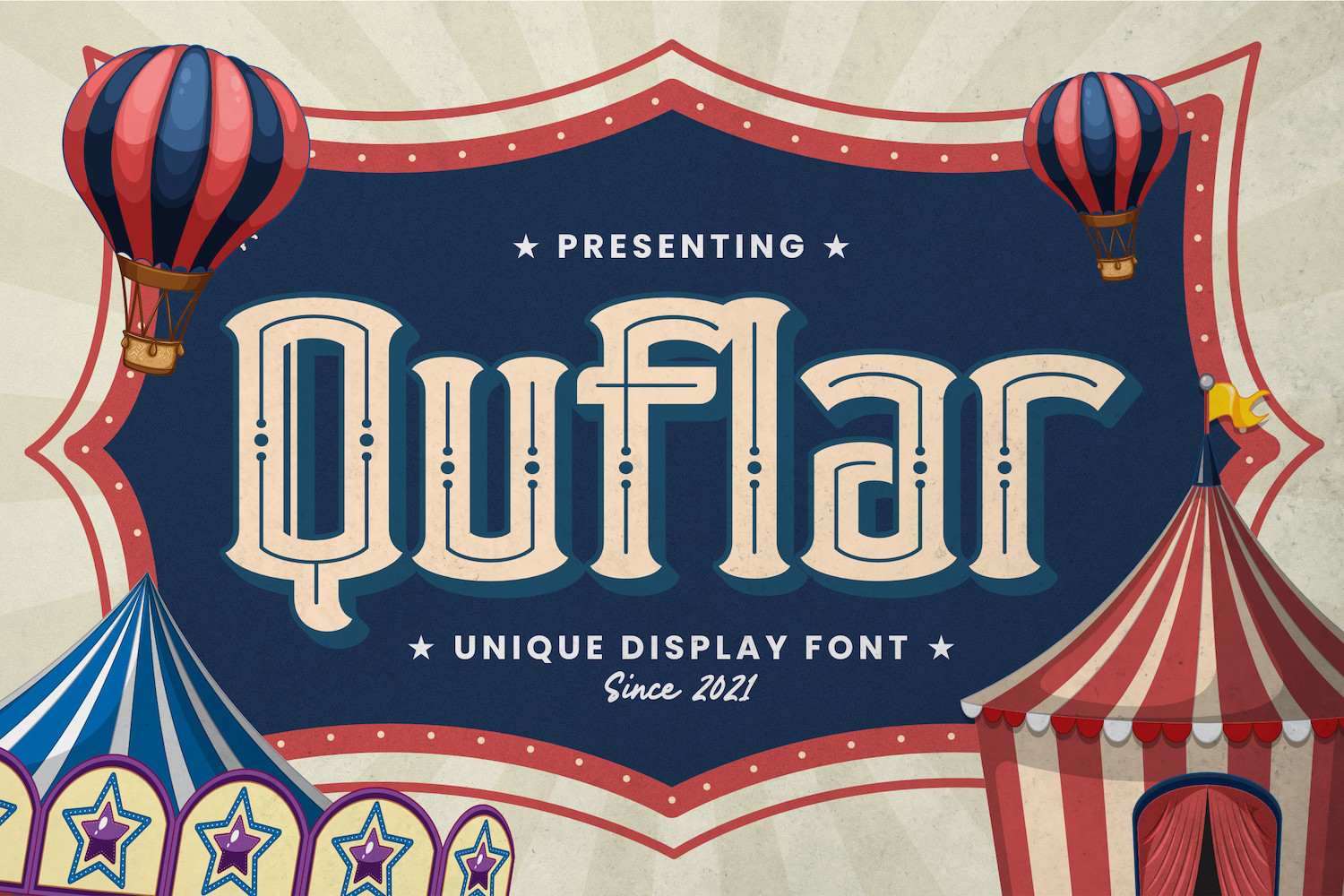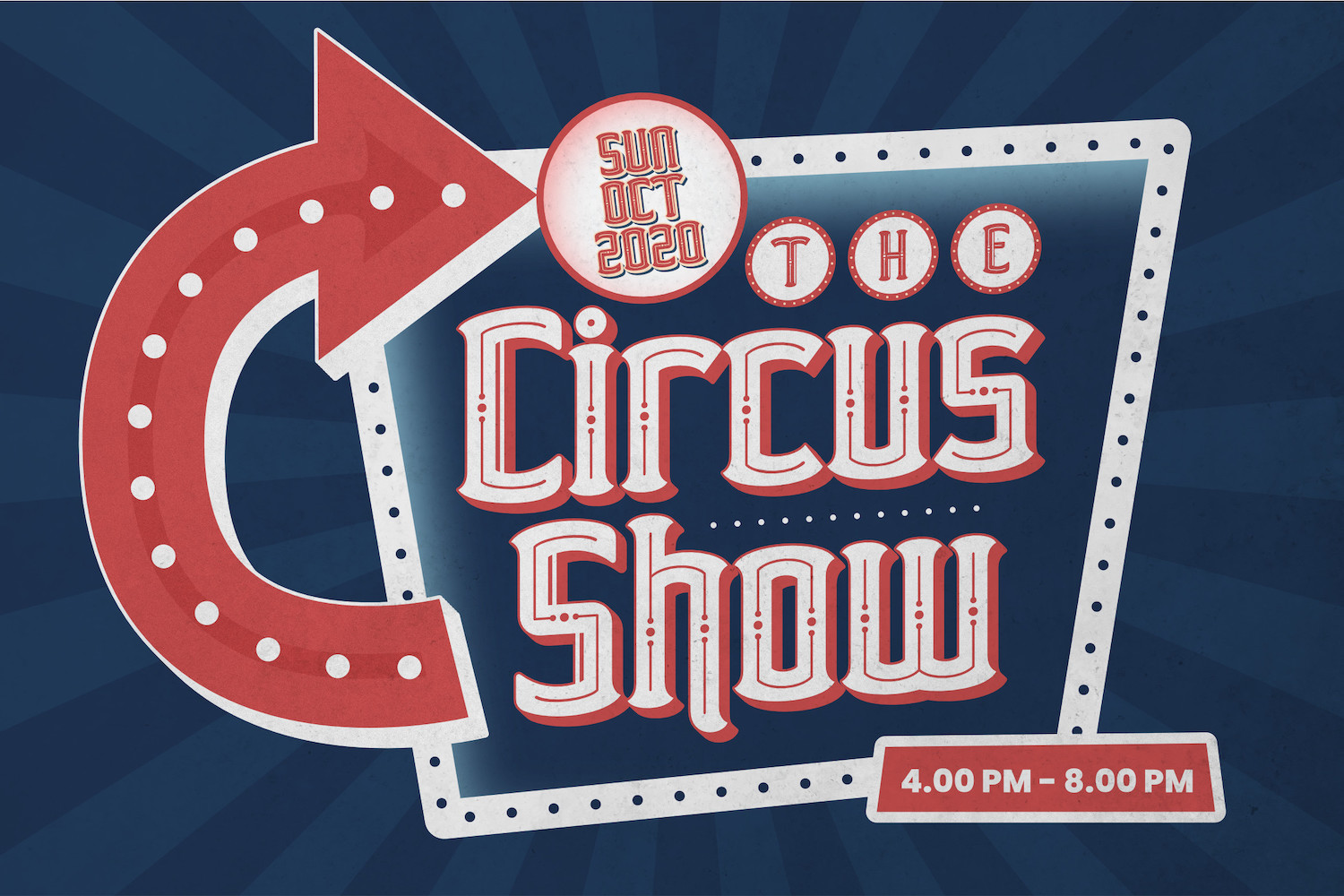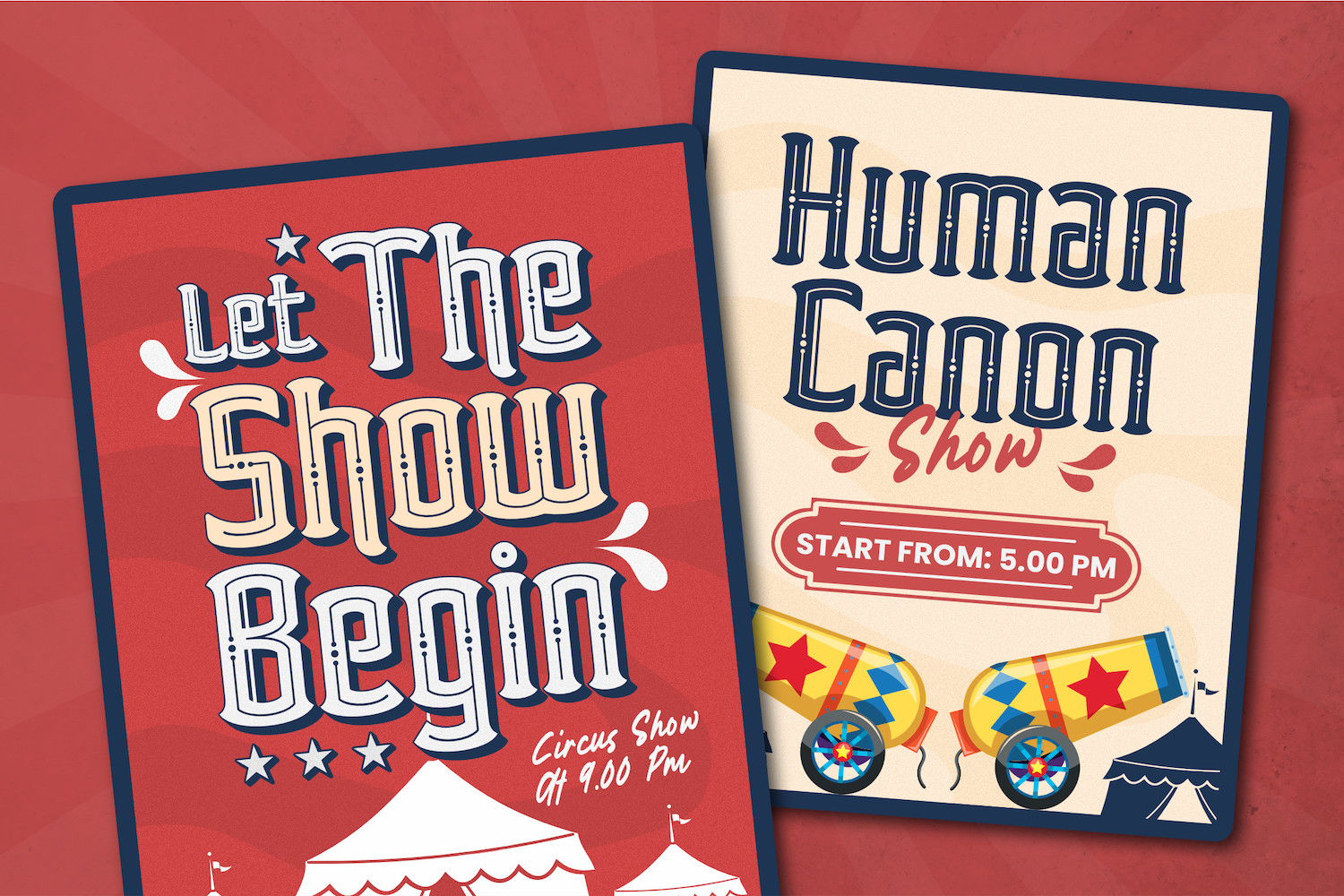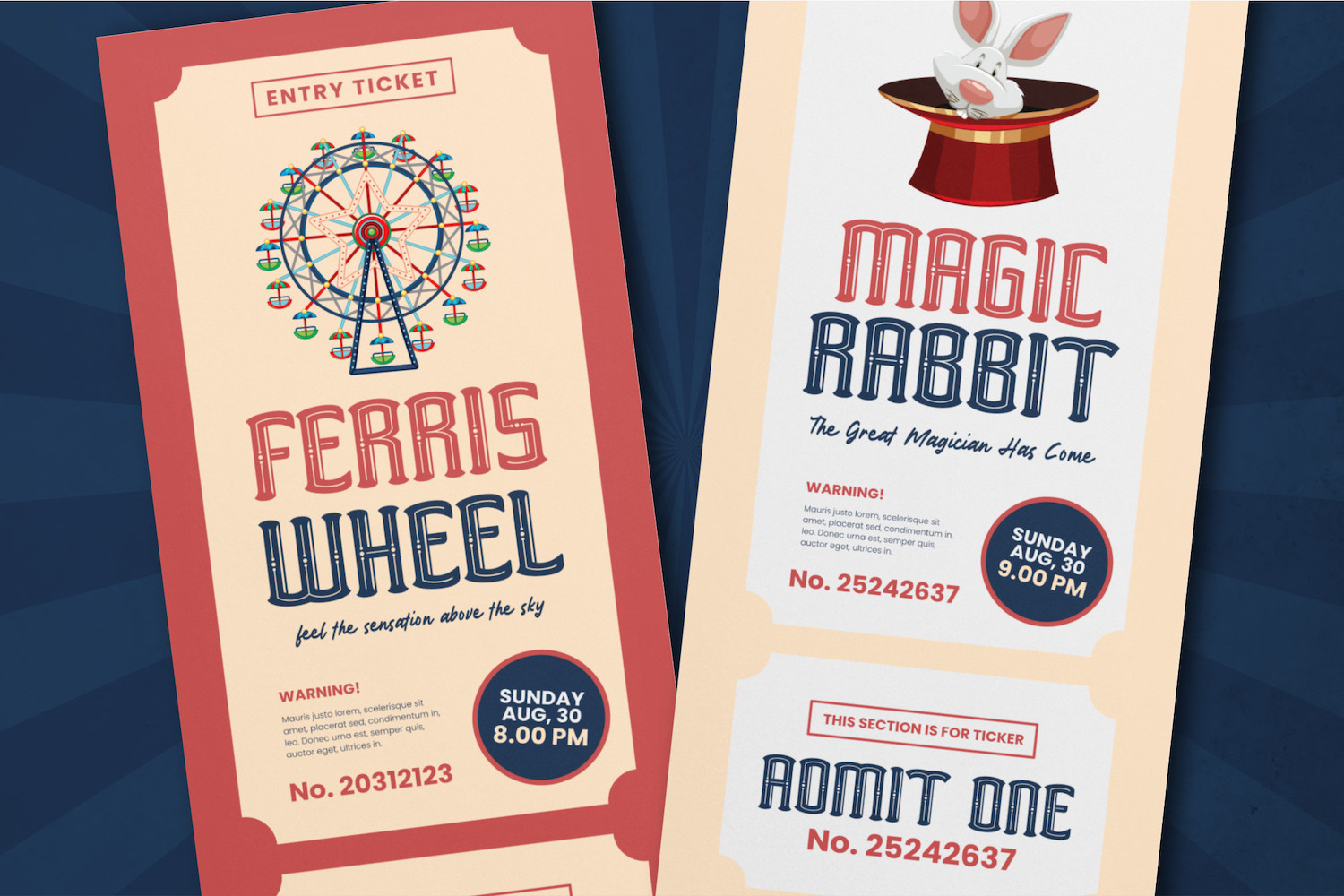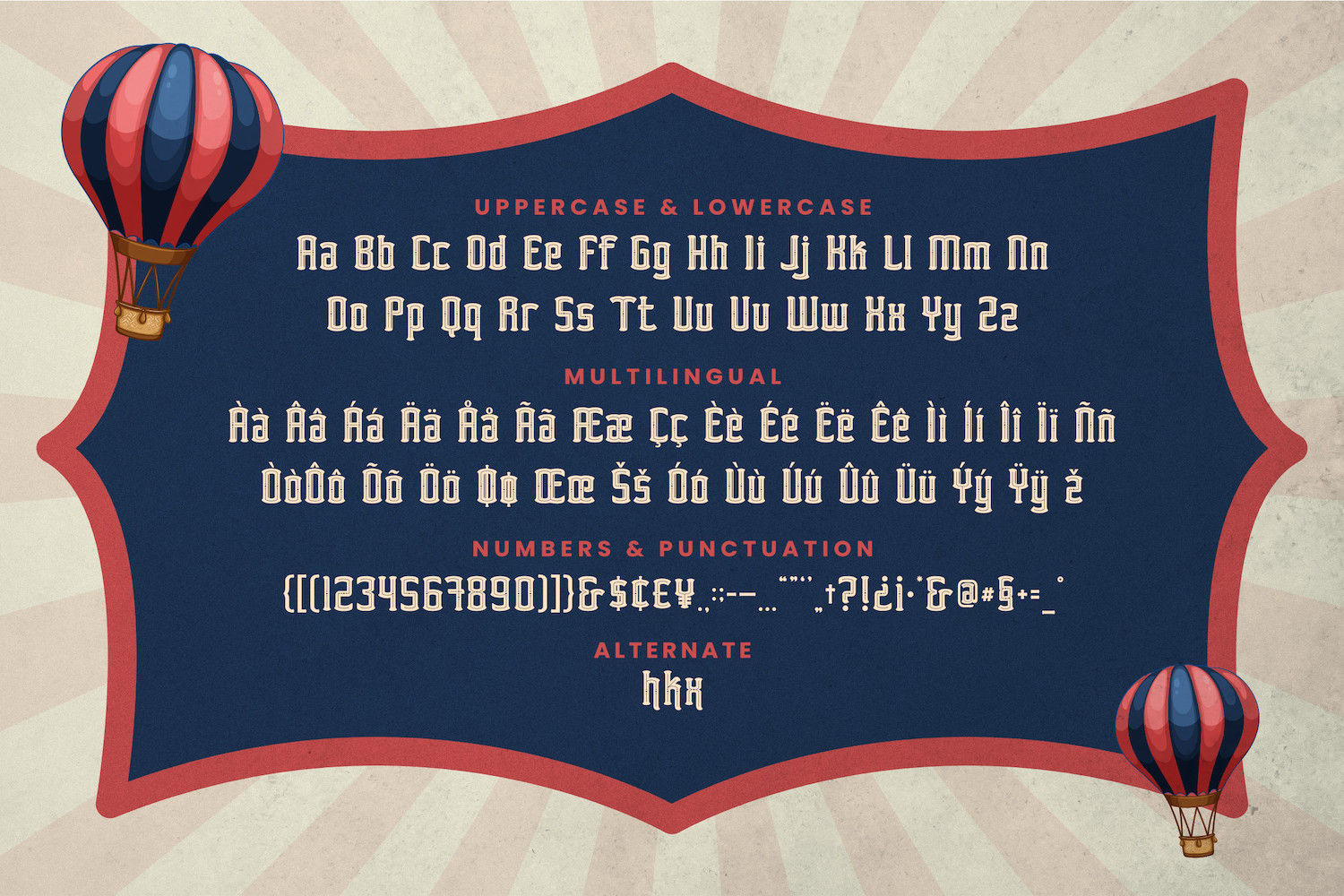
Quflar is a playful and bold circus-inspired display font that brings the magic of carnival posters, vintage fairgrounds, and retro ticket stubs to life. With its tall letterforms, layered shadows, and decorative inline dots, Quflar perfectly captures the whimsy and excitement of showtime. This font is ideal for projects that call for fun, uniqueness, and theatrical flair. Especially in children’s event designs, branding for amusement parks, or vintage-style promotions.
Complete with multilingual support, alternate characters, numbers, and punctuation, Quflar is ready to take center stage in your creative toolkit. Use it for poster headlines, invitation cards, merchandise, signage, or anything that needs a bold, festive personality. Step right up and let Quflar entertain your audience!